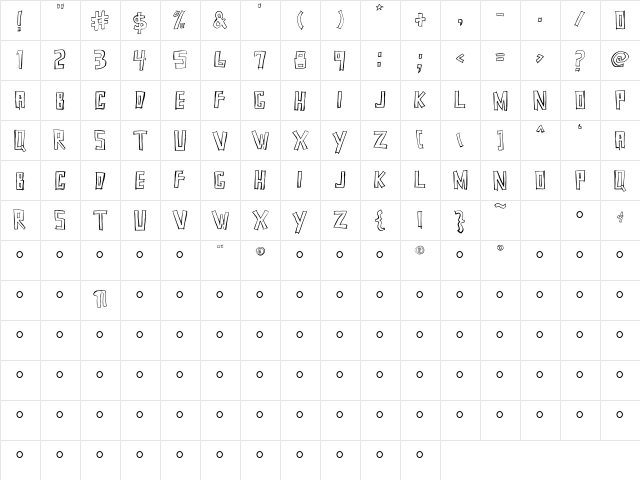
Squarehouse is built around its visual character rather than neutral utility - its distinctive forms are designed to make an impression at display sizes.
Font Pairing: Pair with a clean neutral sans-serif for body copy to let Squarehouse's character lead without overwhelming the composition.
Pro Tip: Use Squarehouse exclusively at display sizes - it was designed to be seen, not read at length. Let a neutral companion handle body copy.